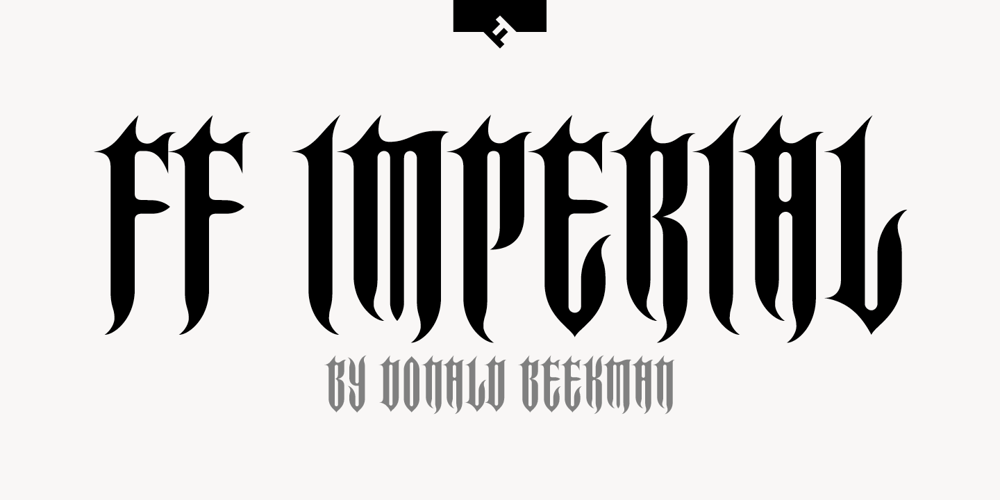
FF Imperial
FF Imperial font
FF Imperial Font Family was designed by Donald Beekman and published by FontFont. FF Imperial contains 4 styles and family package options. Dutch type designer Donald Beekman created this display FontFont in 2000. The family contains 4 weights and is ideally suited for logo, branding and creative industries, music and nightlife as well as poster and billboards. FF Imperial provides advanced typographical support with features such as ligatures. It comes with proportional lining figures.